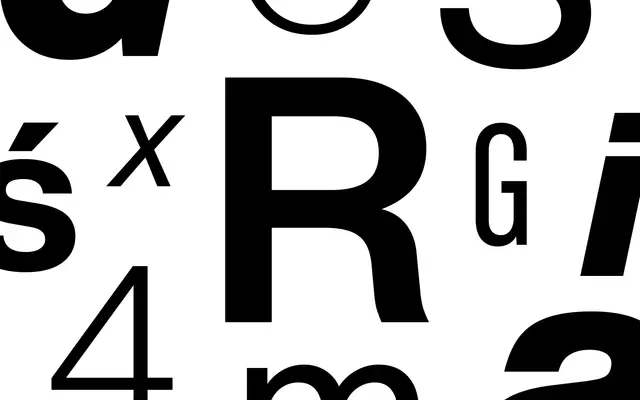
Haas Recast
Dalton Maag · Eduardo Rennó · 2025
A variable-font revival of the 1950s Haas grotesque by Miedinger and Hoffmann, with Weight, Width, Italic and Tracking axes.
A grotesque sans by Eduardo Rennó that revives a 1950s Haas Type Foundry design by Max Miedinger and Eduard Hoffmann, the lineage that led to Helvetica. Dalton Maag's update is built as a variable font with Weight, Width, Italic and Tracking axes, which makes it more flexible than its forebear while keeping the calm Swiss neutrality that draws people to grotesques in the first place.
Dalton Maag classifies Haas Recast as a revival of a classic faux-Swiss grotesque sans typeface originally designed in the 1950s by Max Miedinger and Eduard Hoffmann for the Haas Type Foundry, updated as a variable font with Weight, Width, Italic and Tracking axes.